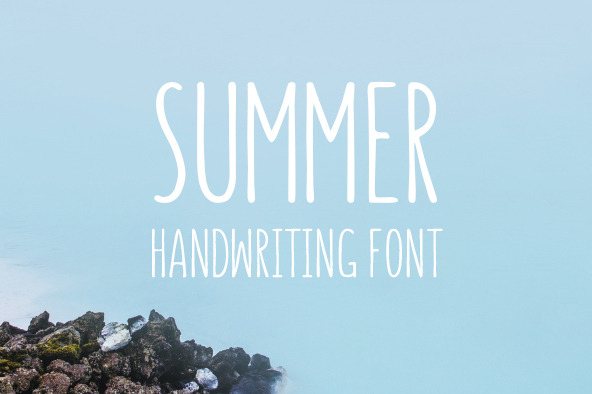
Summer Font
SUMMER Handwriting Font comes in 6 styles - Light / Light Italic / Regular / Regular Italic / Bold / Bold Italic - it has latin extended and cyrillic letters.